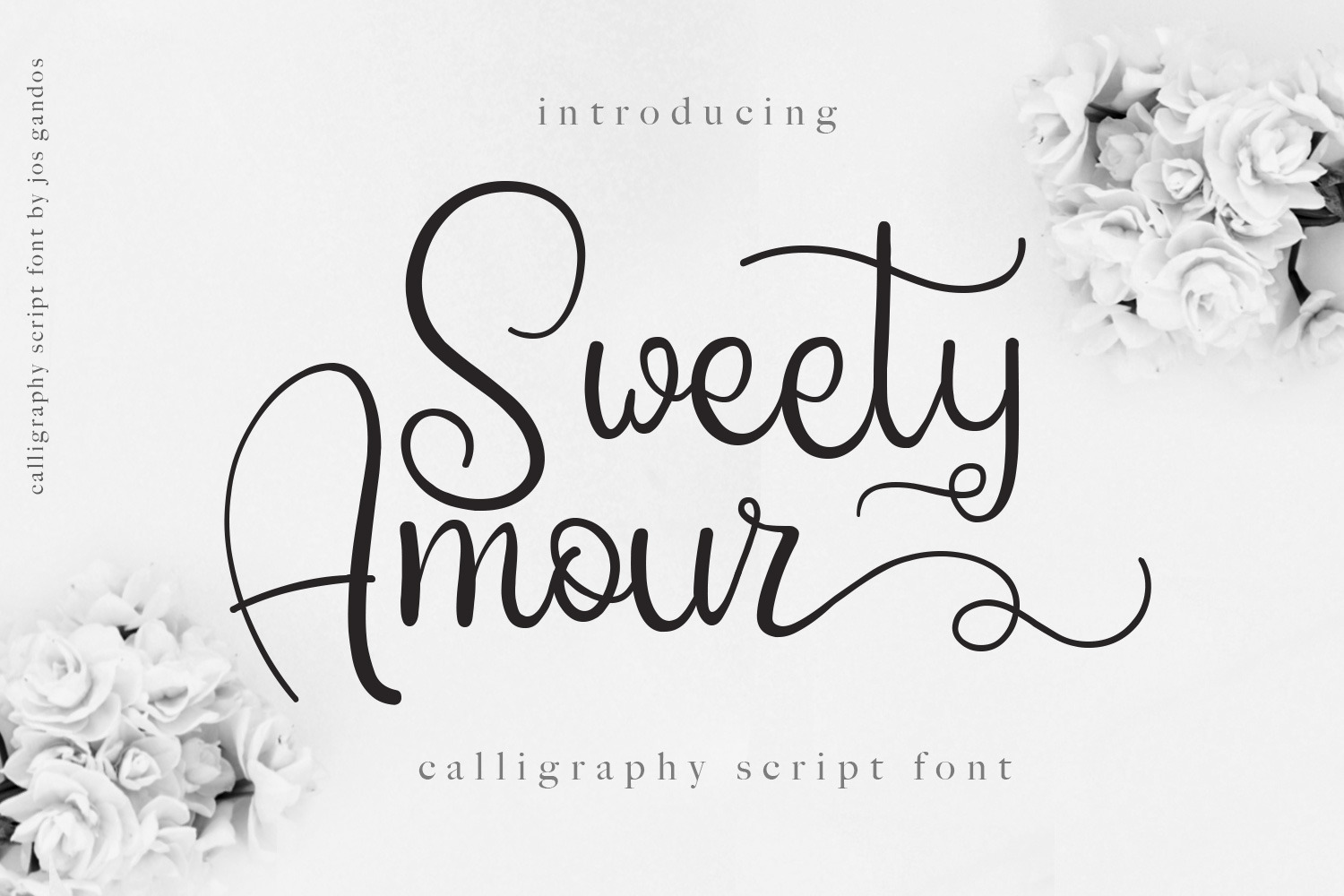
Sweety Amour Calligraphy Font
Sweety Amour Calligraphy Font is modern calligraphy font with sophisticated and romantic style. It is perfect for branding, wedding, photography, and any design related to feminine design.
Sweety Amour Calligraphy Font contains standard characters, lowercase, uppercase, numbers, punctuation, ligatures, international characters and stylistic set as opentype feature.